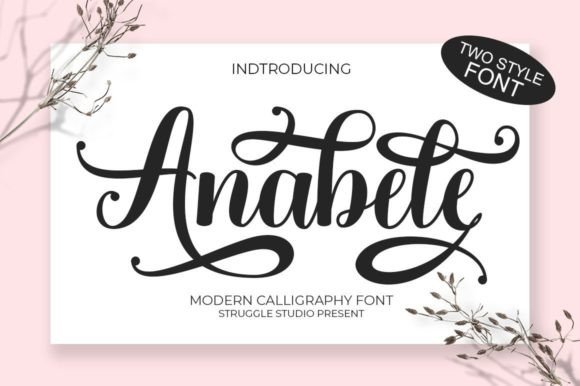
The Designer’s Delight: Anabele Font
I still remember the frustration of working on a client’s wedding invitation project, searching for the perfect font to capture the elegance and playfulness of the couple’s personalities. Hours spent scrolling through font libraries, and just when I thought I’d never find it, I stumbled upon Anabele – a modern and casual calligraphy font that instantly won my heart. If you’re a designer, crafter, or creative hobbyist looking for a versatile font to elevate your projects, you’re in the right place!
An Honest Review of Anabele Font
What I Love About Anabele ✨
- 💫 Modern and casual vibe: Anabele strikes the perfect balance between modern sophistication and laid-back charm, making it suitable for a wide range of projects.
- ✅ Elegant yet approachable: This font is perfect for designers who want to add a touch of elegance to their work without making it feel too formal or stuffy.
- 🎨 Highly versatile: From logos and product packaging to wedding invitations, branding, headlines, labels, signatures, book covers, posters, and quotes – Anabele can do it all!
- 👍 Easy to read: Despite its elegant nature, Anabele remains highly legible, even at smaller font sizes.
- ⚠️ Limited use for body text: While Anabele is perfect for headlines and titles, it might not be the best choice for longer body text due to its elegant, cursive nature.
- ⚠️ Some letters may require manual kerning: As with many script fonts, you might need to adjust the kerning between certain letters to achieve optimal results.
Tips for Exploring OpenType Features and Glyphs
Anabele, like many modern fonts, comes with a range of OpenType features and glyphs that can enhance your typography. Look for:
- Stylistic alternates: Many script fonts, including Anabele, offer alternative letterforms that can add variety to your text.
- Swashes and ligatures: These can add a decorative touch to your typography, making it more elegant and eye-catching.
The Backstory Behind Anabele Font
Anabele was designed with the intention of creating a modern calligraphy font that captures the elegance of traditional calligraphy while feeling fresh and contemporary. Inspired by the flowing lines of handwritten scripts and the clean simplicity of modern typography, Anabele’s designer aimed to create a font that would be both versatile and beautiful.
| Font Name | Anabele Font |
| Author | Struggle Studio |
Q: What type of projects is Anabele best suited for?
Anabele is highly versatile and can be used for a wide range of projects, including logos, product packaging, wedding invitations, branding, headlines, labels, signatures, book covers, posters, and quotes.
Q: Does Anabele support OpenType features?
Yes, Anabele supports OpenType features, including stylistic alternates, swashes, and ligatures, which can enhance your typography and add a decorative touch to your designs.
Q: Is Anabele suitable for body text?
While Anabele is elegant and highly legible, it’s primarily designed for headlines and titles. For longer body text, you might want to consider a font that’s specifically designed for readability in larger blocks of text.